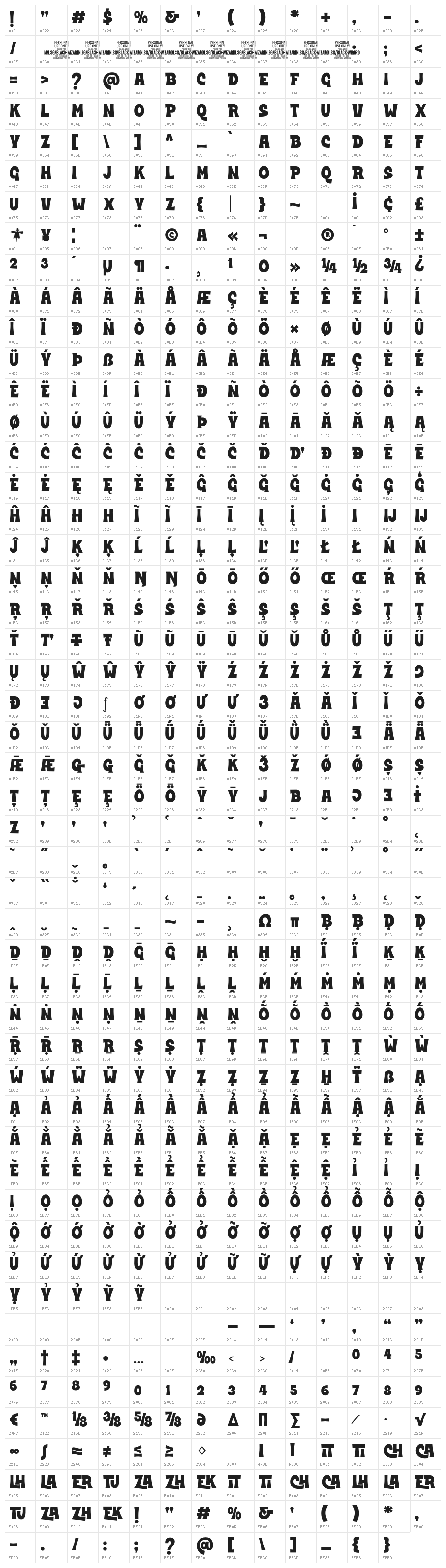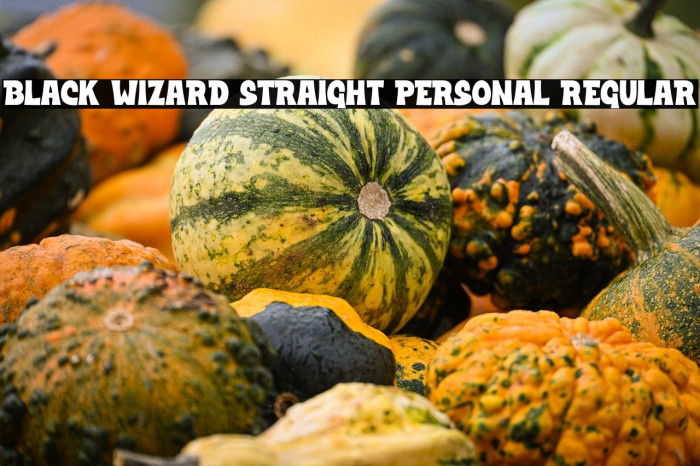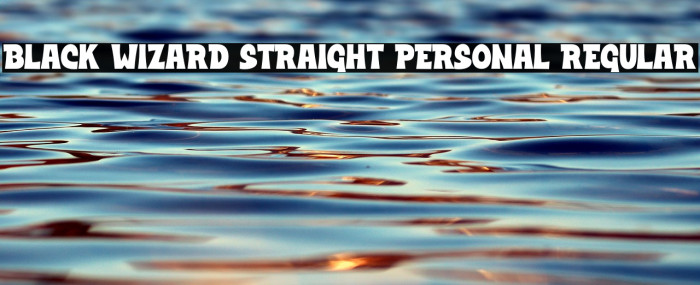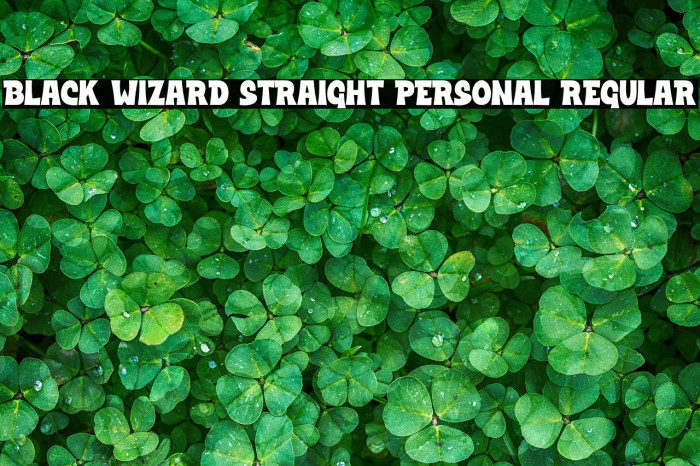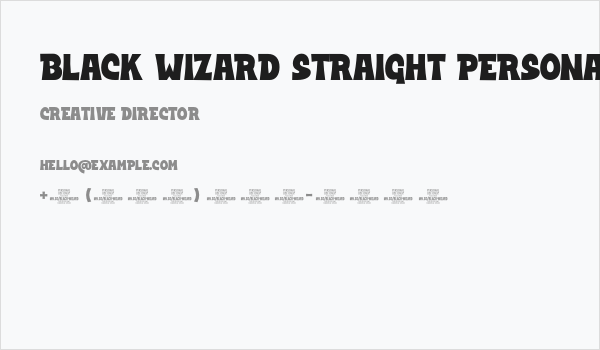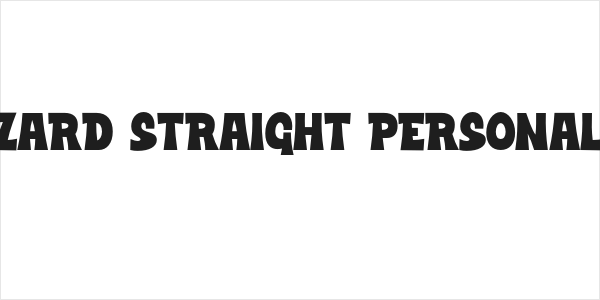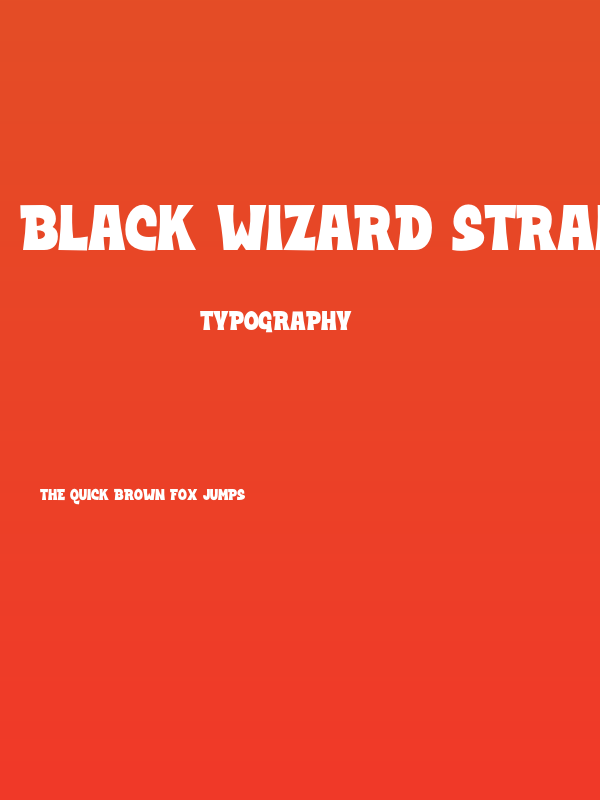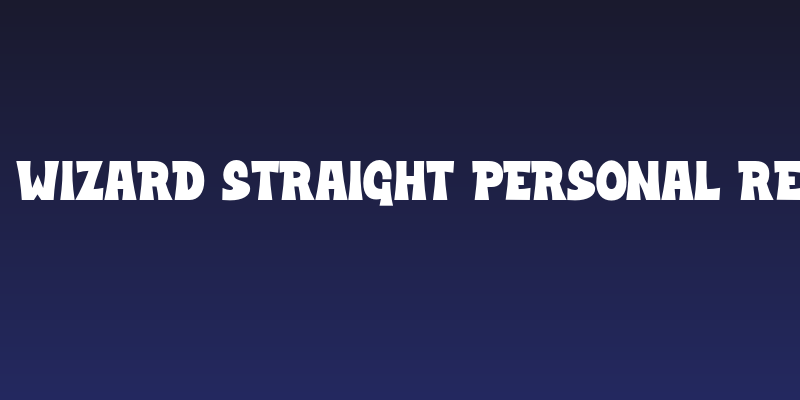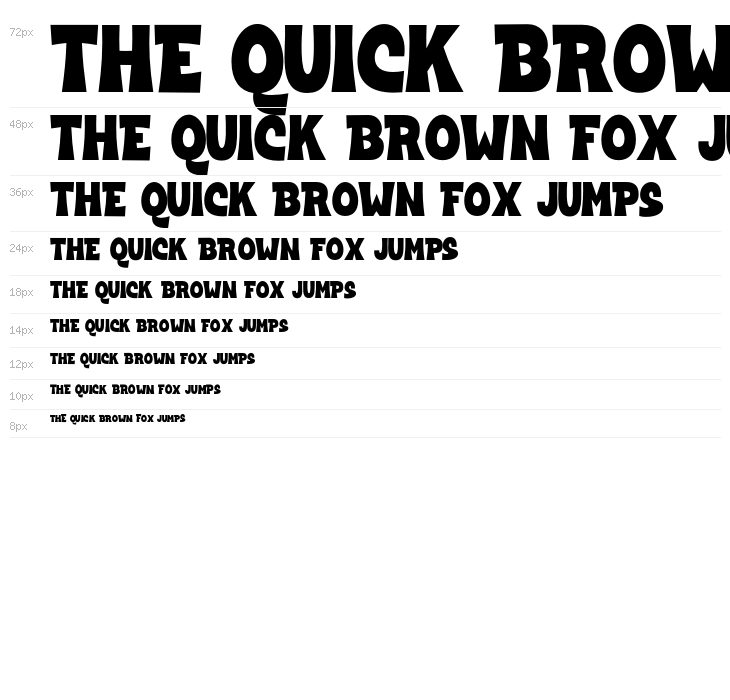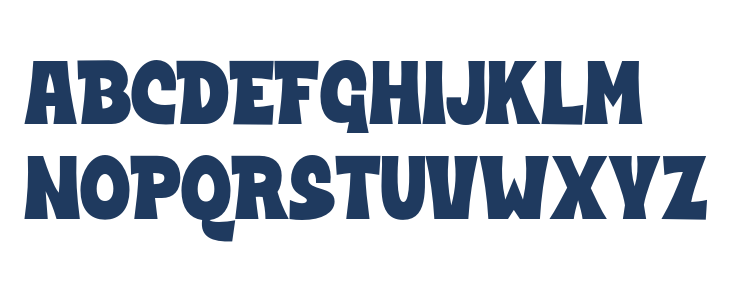
Black Wizard Straight PERSONAL Regular Font
Black Wizard Straight PERSONAL Regular Description
This font features bold, angular characters with a distinct, playful style. The uppercase letters are characterized by their thick strokes and slightly irregular shapes, giving them a whimsical and dynamic appearance. The lowercase letters maintain the same boldness, with a consistent stroke width that enhances readability. The numbers and special characters are equally bold, fitting seamlessly with the overall design. The font's unique style makes it stand out, with a strong presence that is both eye-catching and memorable.
| Overall Style | Playful, Dynamic, Bold |
| Proposed Projects | Ideal for posters, children's book covers, comic titles, and playful branding. |